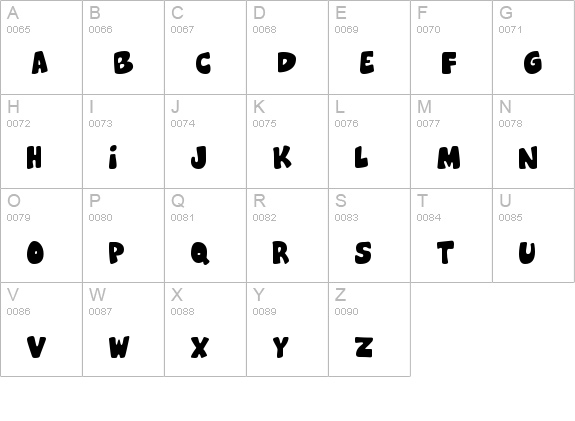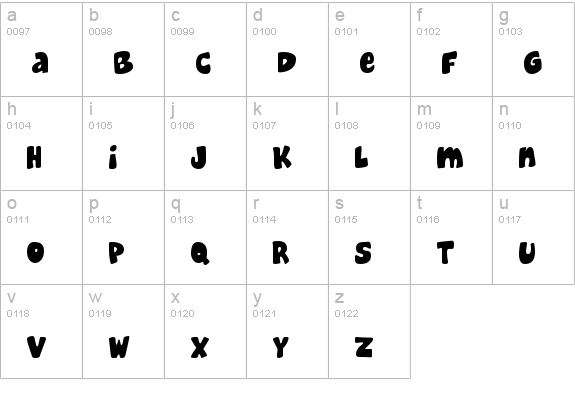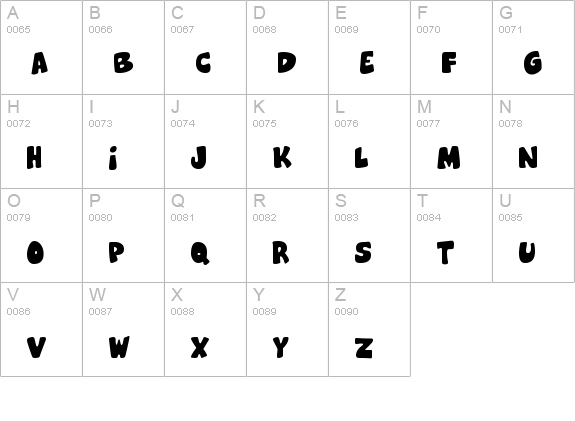
Cheeseburger Font Details
Introducing Cheeseburger font, a deliciously bold and playful typeface that will add a flavorful touch to your designs. Inspired by the classic comfort food, Cheeseburger font boasts a perfect balance of whimsical charm and modern appeal. Its rounded edges and thick strokes give it a friendly and inviting look, making it perfect for a wide range of projects. Whether you're designing menus for a trendy restaurant, creating eye-catching posters, or adding a fun twist to your social media graphics, Cheeseburger font is sure to stand out and make a lasting impression. Best of all, Cheeseburger font is completely free to download at FontsMarket.com! So go ahead, spice up your designs with this delightful typeface and let your creativity sizzle.